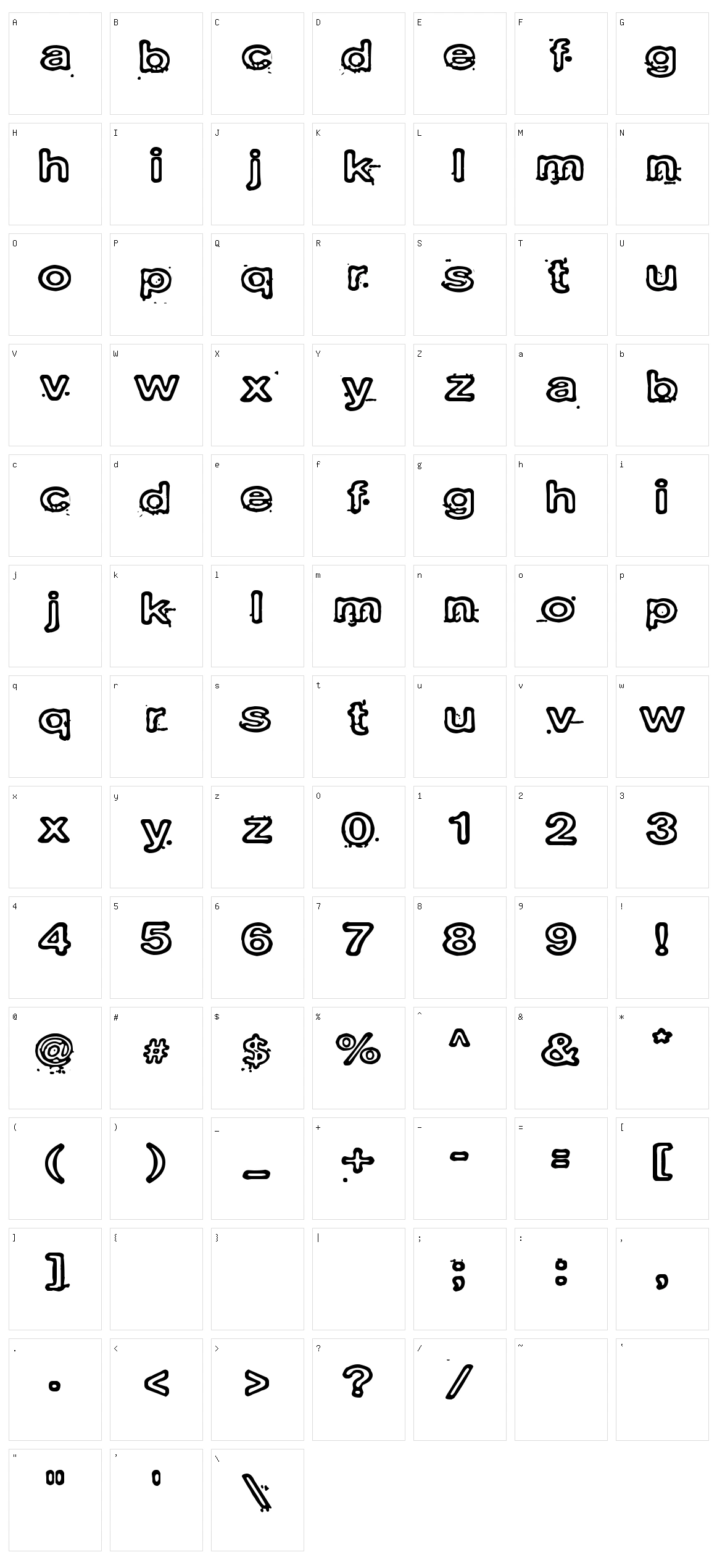
The free font Laboratoriokoira is carefully designed by junkohanhero, showcasing a thoughtful balance of creativity and usability and falls under the Destroy font style. When you download the ZIP file, it contains only 27.75 KB of font files, making it lightweight and quick to download. Please review the license details below to understand permitted usage and distribution rights. If license information is not available, we recommend using this font for personal projects only or contacting the author directly for commercial usage permissions.